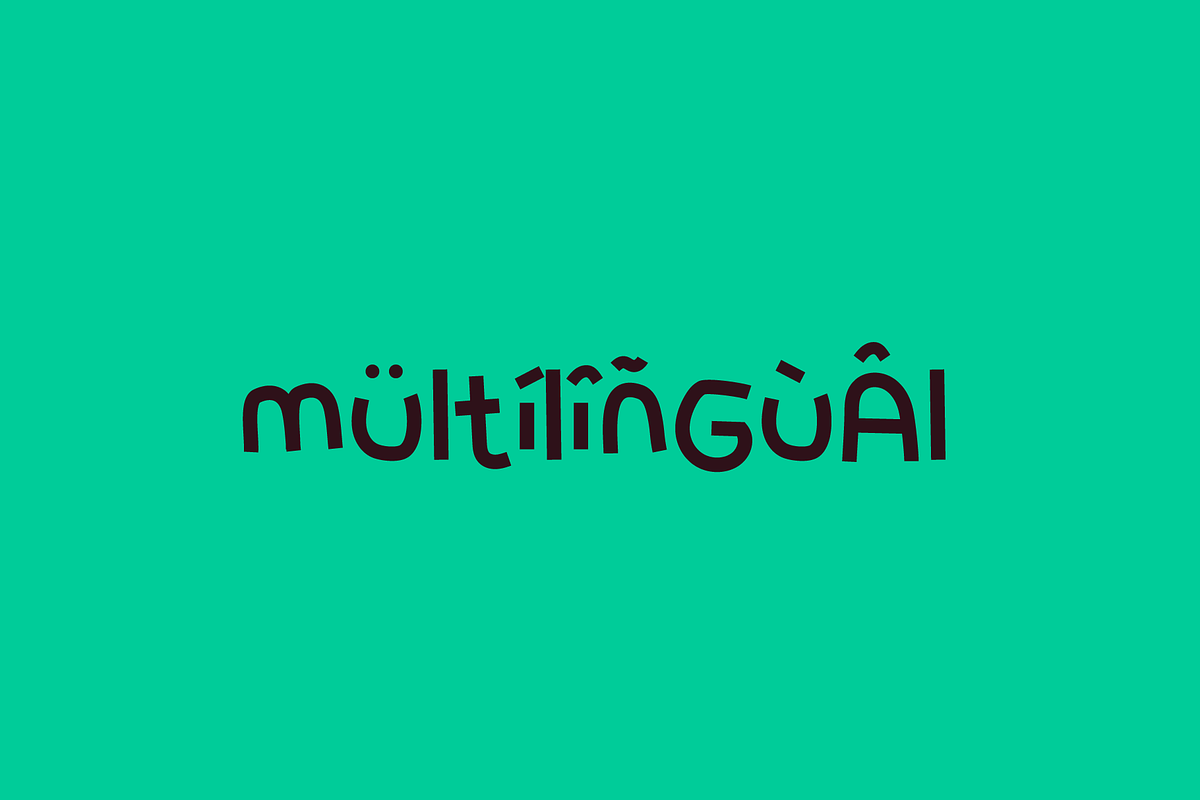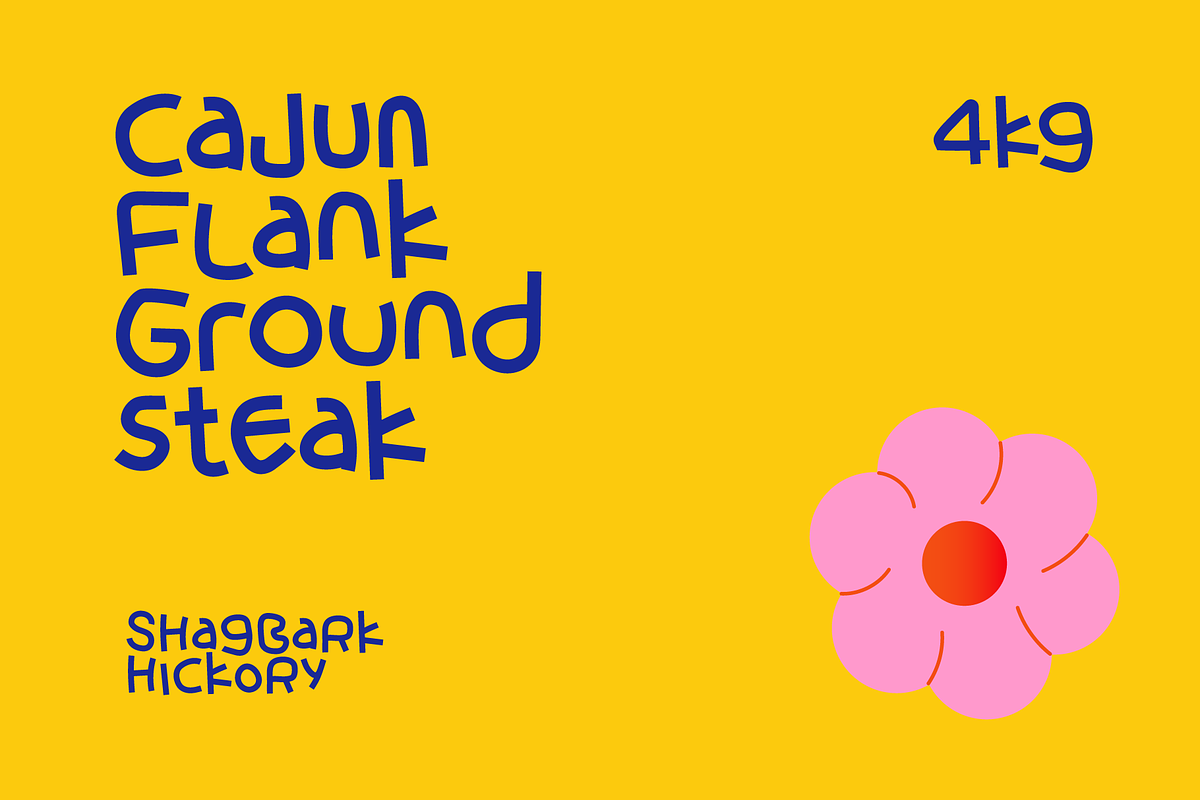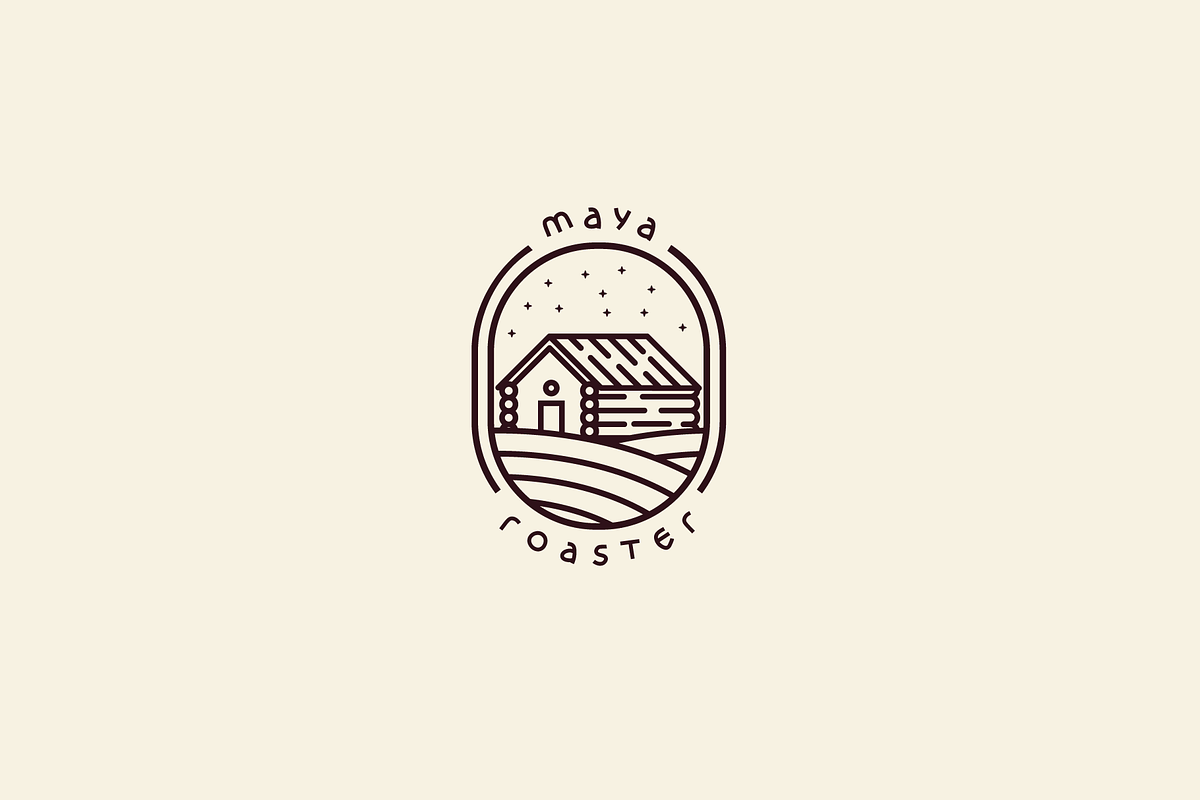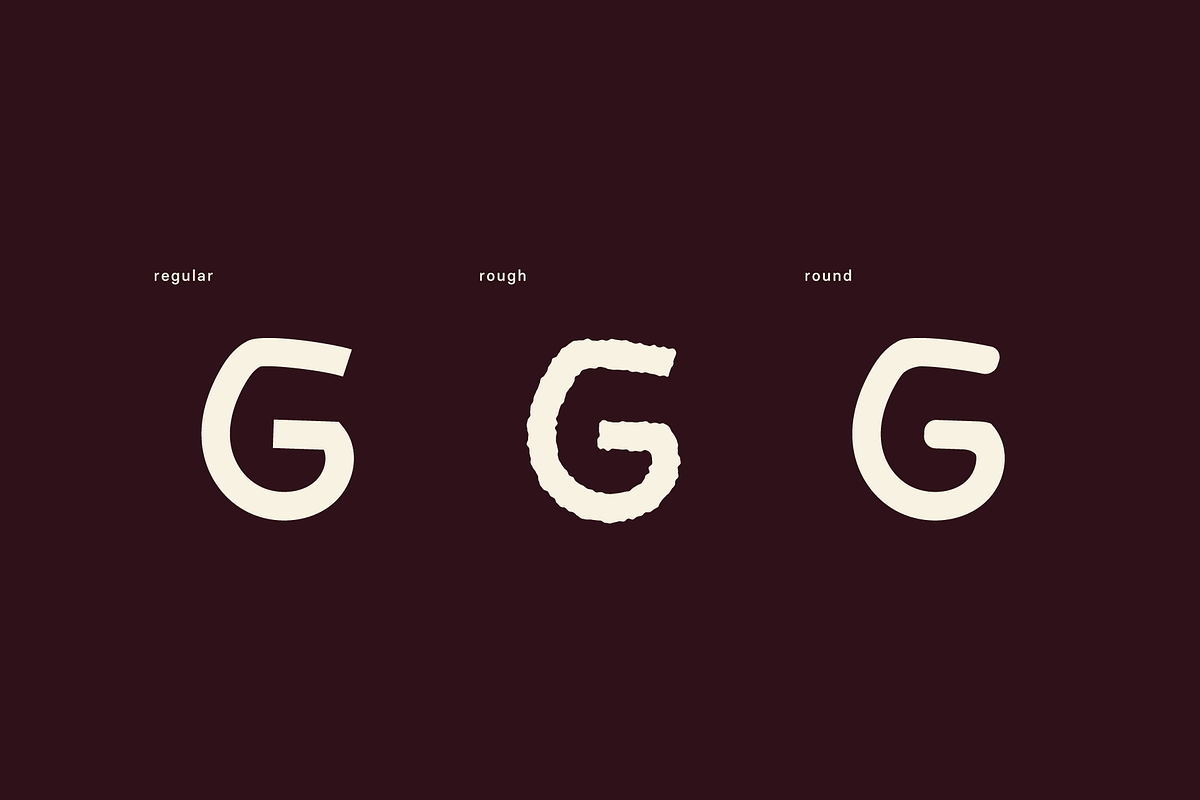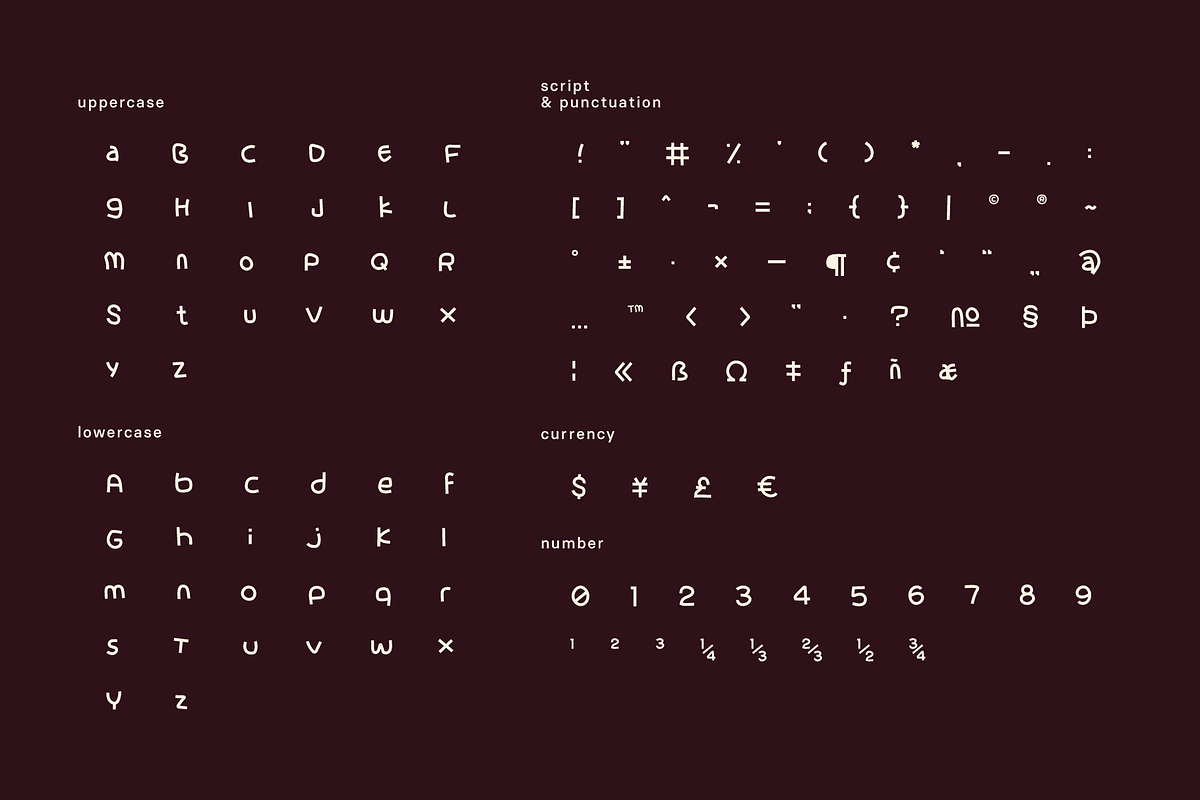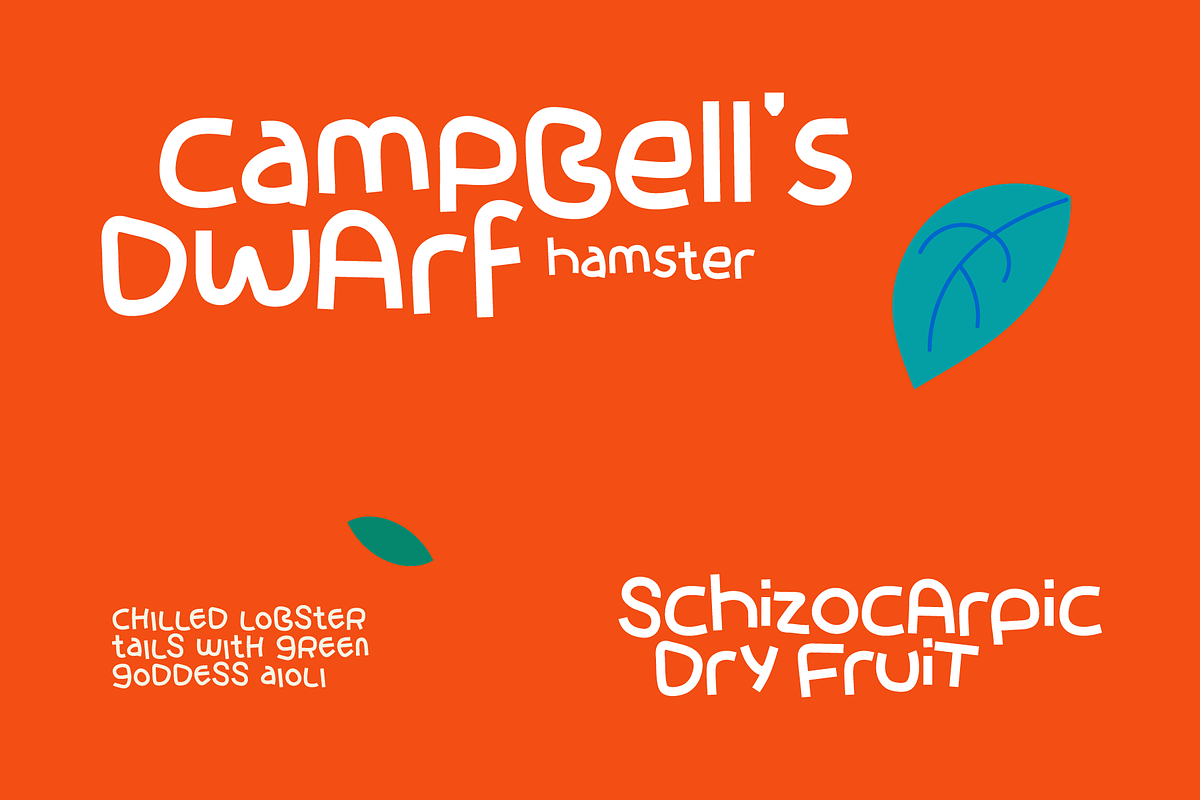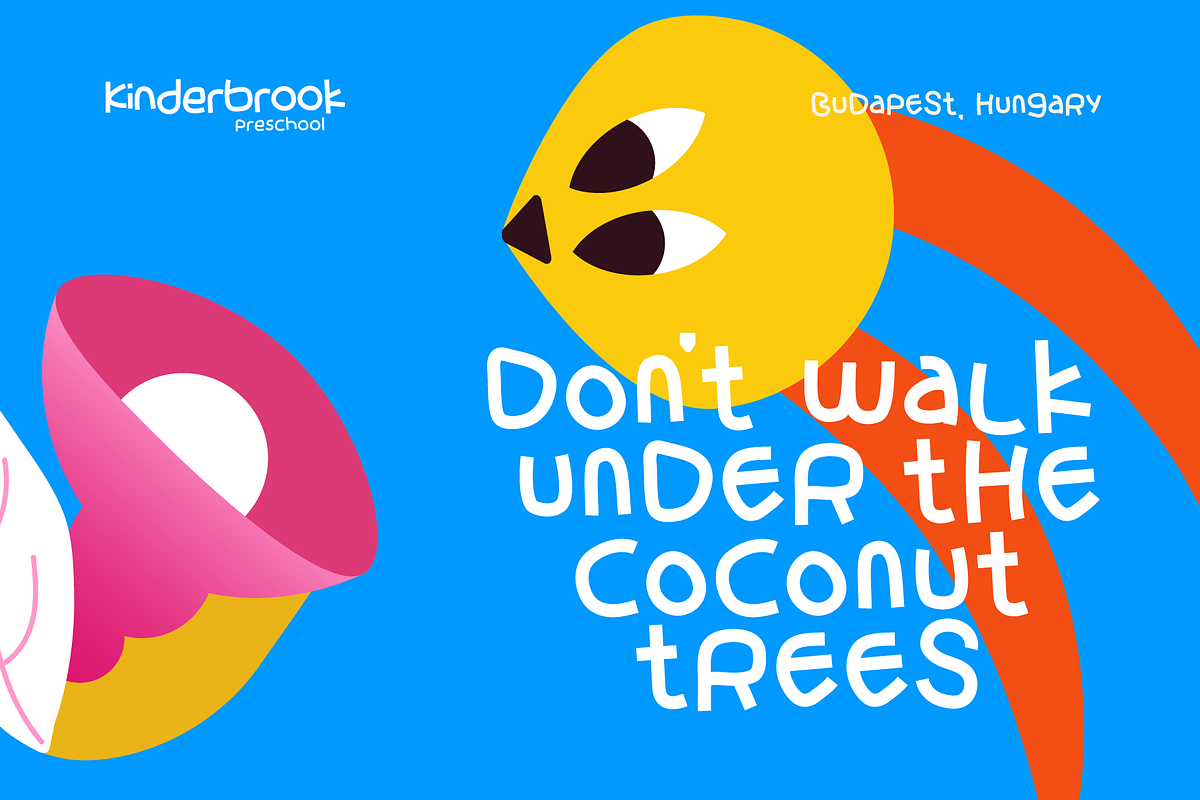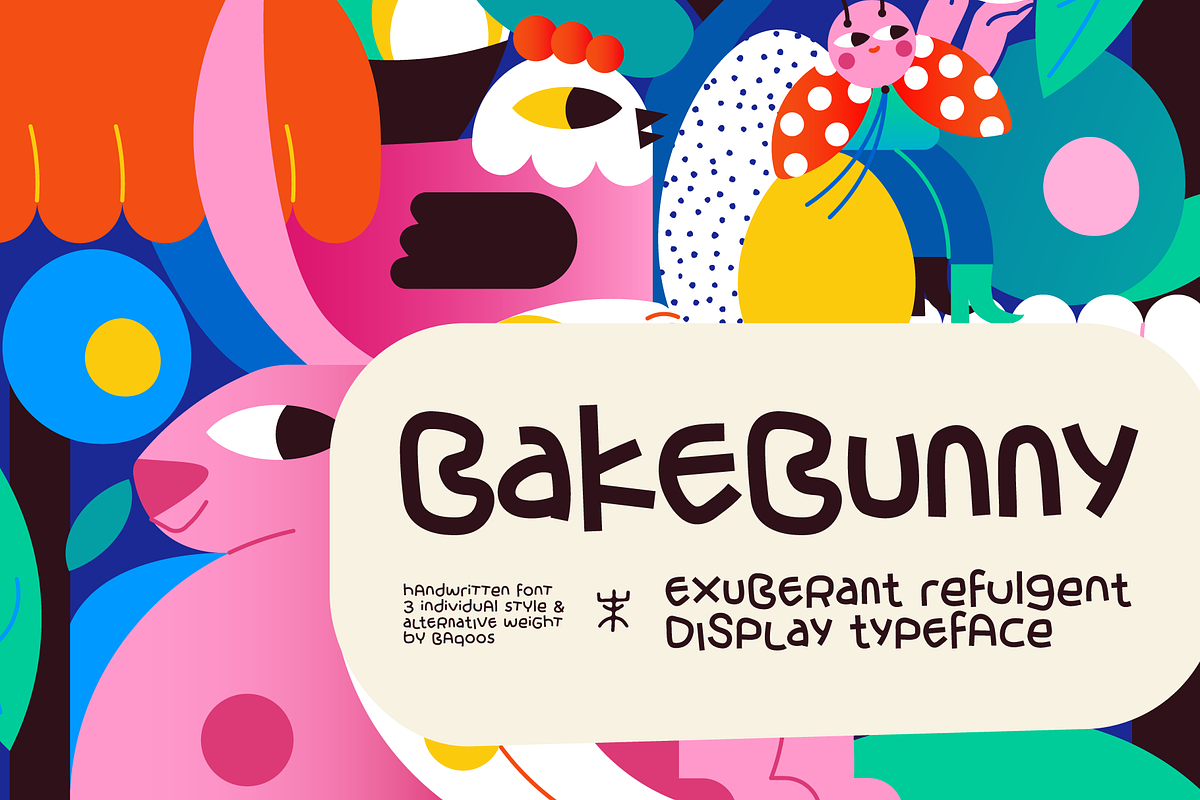
Bake Bunny Font
Bake Bunny is an exuberant refulgent handwritten mix cased typeface apt for headline, editorial, branding, packaging, printed materials and typographic applications. 200+ glyphs including punctuation and numerical.